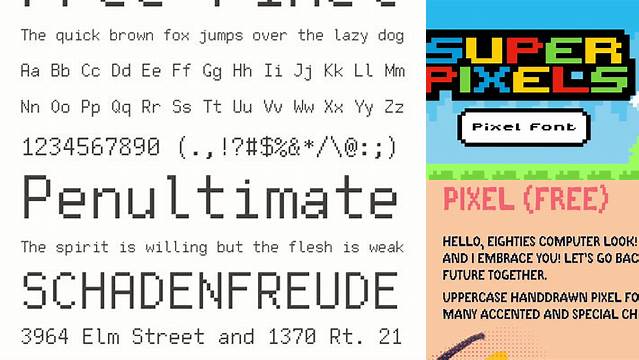
Free Pixel Fonts: A Guide To Copyright-Free Options
Are you looking for copyright-free pixel fonts? You've come to the right place, guys! Let's dive deep into the world of pixel fonts that you can use without worrying about legal stuff. Pixel fonts are super popular for retro games, indie projects, and adding that cool, vintage vibe to your designs. But finding fonts that are truly free for commercial use can be a bit of a headache. That's why I'm here to guide you through everything you need to know.
What are Copyright-Free Pixel Fonts?
Why Use Copyright-Free Fonts?
How to Choose the Right Pixel Font
Choosing the right pixel font can make or break your project's aesthetic. Here are some things to consider:
Readability
The most important factor is readability. Can your audience easily read the font, especially at small sizes? Test the font in your target resolution to make sure it's legible.
Style
Does the font's style match the overall tone and theme of your project? A futuristic font might not be the best choice for a retro game, and vice versa.
Character Set
Does the font include all the characters you need, such as punctuation, symbols, and accented characters? Make sure it supports the languages you're targeting.
Kerning and Spacing
Pay attention to the kerning (the space between letters) and spacing of the font. Poor kerning can make the text look uneven and difficult to read.
Licensing
Always, always double-check the license! Make sure the font is truly copyright-free and allows for commercial use if that's what you need.
Speaking of licenses, let's take a closer look at some common ones you'll encounter:
Public Domain
Fonts in the public domain are free for anyone to use for any purpose, without any restrictions. You can use them commercially, modify them, and distribute them without needing to give credit to the original creator.
Creative Commons Zero (CC0)
CC0 is similar to public domain. The creator has waived all copyright and related rights to the font, allowing you to use it freely without any obligations.
SIL Open Font License (OFL)
The OFL is a popular license for open-source fonts. It allows you to use, study, modify, and redistribute the font, even commercially. However, there are some restrictions, such as requiring that the font remains under the OFL if you redistribute it.
Other Open-Source Licenses
Some fonts may be released under other open-source licenses like the MIT License or the Apache License. These licenses typically grant you broad rights to use, modify, and distribute the font, but it's essential to read the specific terms of each license.
How to Credit Copyright-Free Fonts
Even if a font is copyright-free, it's often good practice to give credit to the font's creator. This is especially true if the license requires attribution or if you simply want to acknowledge the designer's work. Here's how you can do it:
In Your Game Credits
If you're using the font in a game, include the font's name and the creator's name in the game's credits. You can also include a link to the font's website or the license under which it's released.
In Your Website Footer
If you're using the font on a website, add a line in the footer crediting the font's creator. For example, "Font: [Font Name] by [Creator Name] (License: [License Type])".
In Your Documentation
If you're distributing the font with your project, include a text file or a section in your documentation that credits the font and provides information about its license.
Tips for Working with Pixel Fonts
Here are some handy tips for getting the most out of your pixel fonts:
- Use Integer Scaling: When scaling pixel fonts, always use integer scaling (e.g., 2x, 3x, 4x) to avoid blurry or distorted text.
- Avoid Rotation and Skewing: Rotating or skewing pixel fonts can make them look pixelated and unreadable. Stick to straight, upright text.
- Test on Different Devices: Make sure your font looks good on different devices and screen resolutions. What looks great on your desktop might not look so good on a mobile phone.
- Consider Anti-Aliasing: Depending on your project, you may want to disable anti-aliasing to preserve the crisp, pixelated look of the font.
- Assuming All Fonts are Free: Don't assume that just because you found a font online, it's free to use. Always check the license!
- Ignoring the License Terms: Read the license carefully and make sure you understand the terms. If you're unsure, seek legal advice.
- Not Giving Credit: Even if the license doesn't require attribution, it's still good practice to give credit to the font's creator.
- Using the Font Inappropriately: Make sure the font is suitable for your project. A low-resolution pixel font might not be the best choice for a high-resolution print project.
Finding and using copyright-free pixel fonts can be a rewarding experience, allowing you to add a unique and authentic touch to your projects without breaking the bank or worrying about legal issues. Just remember to do your research, understand the licenses, and give credit where it's due. Happy designing, guys!